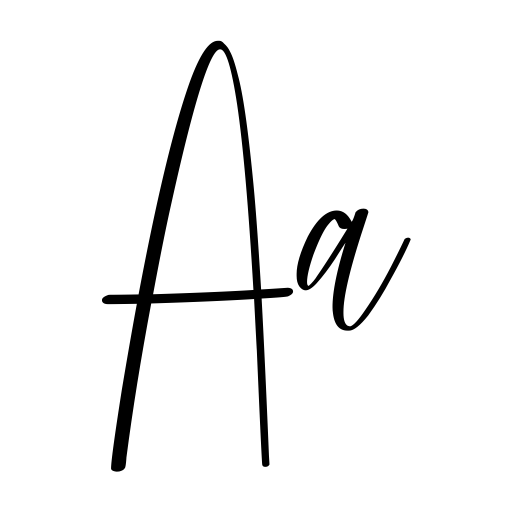
Astida is a delicate, handwritten script font featuring slender, flowing letterforms that evoke elegance and personal warmth. Its tall x-height, smooth strokes, and slightly playful yet refined style make it ideal for invitations, branding, and creative projects that seek a graceful and intimate touch. This font shines in settings where a stylish, approachable, and sophisticated handwritten feel is desired.
Astida Font